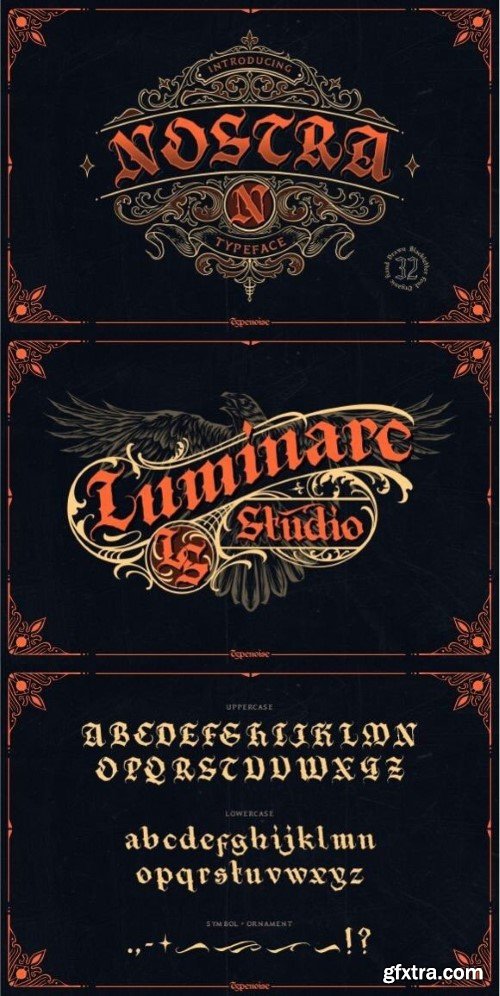
诺萨字体
Introducing Nostra Vintage Gothic, a stunning Blackletter Display Font that enhances your message with classic beauty. Express yourself with words of lasting worth using this distinctive typeface, which combines flair and originality effortlessly. Let Nostra Vintage Gothic bring a touch of refinement and charm to your designs, making your message shine with unmatched visual appeal.